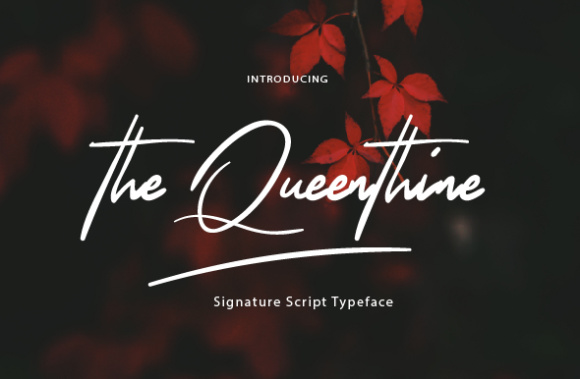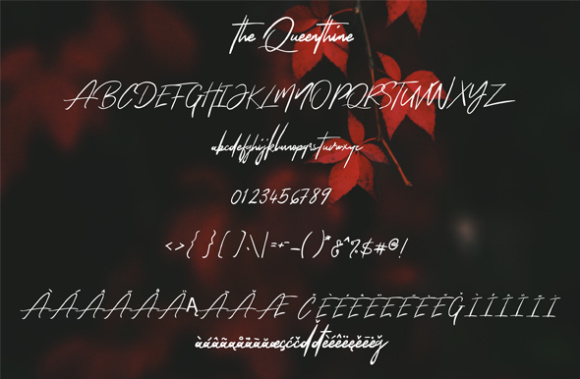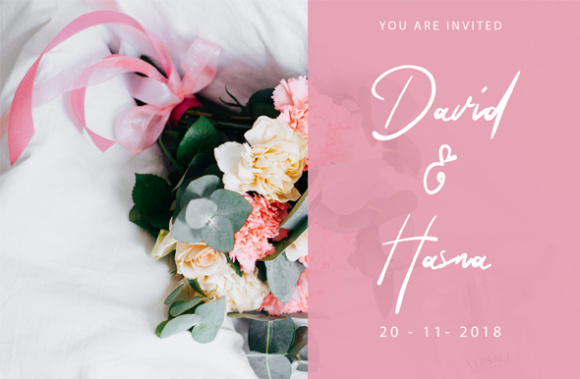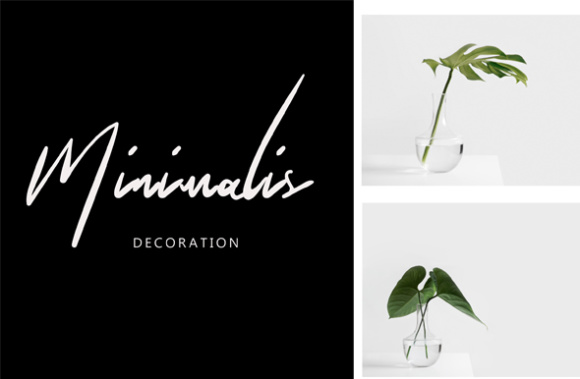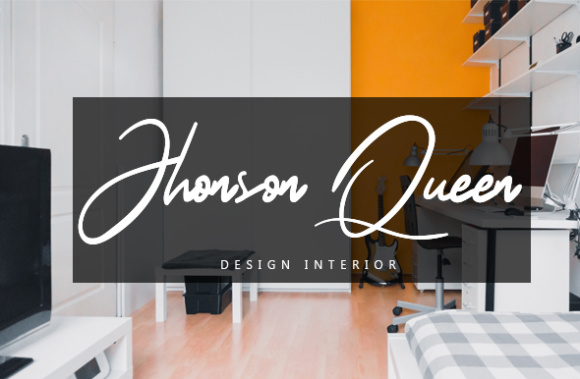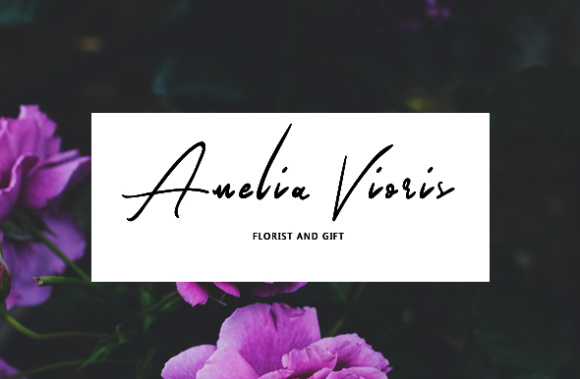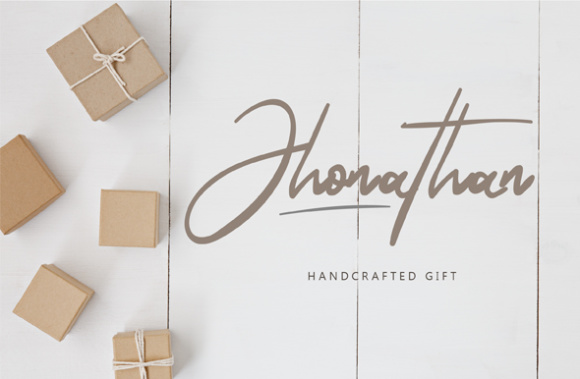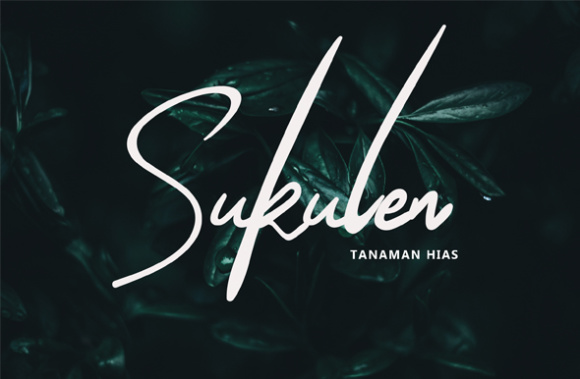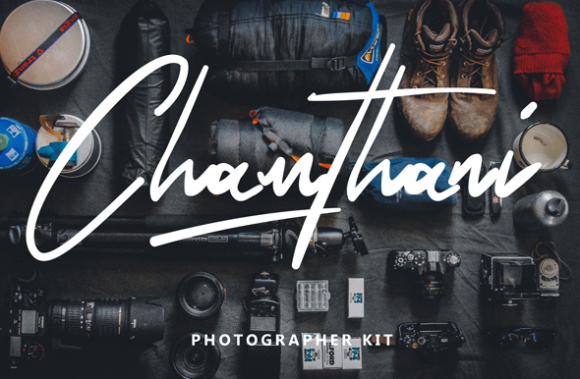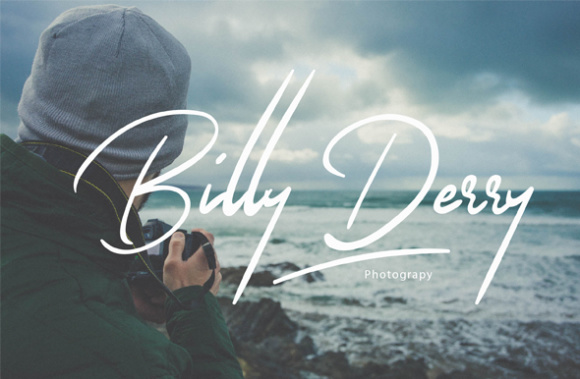
The Queenthine Font
About The Queenthine Font
The Queenthine is a beautiful signature typeface. It has an elegant style which is perfect for every design which want to emulate a signature.